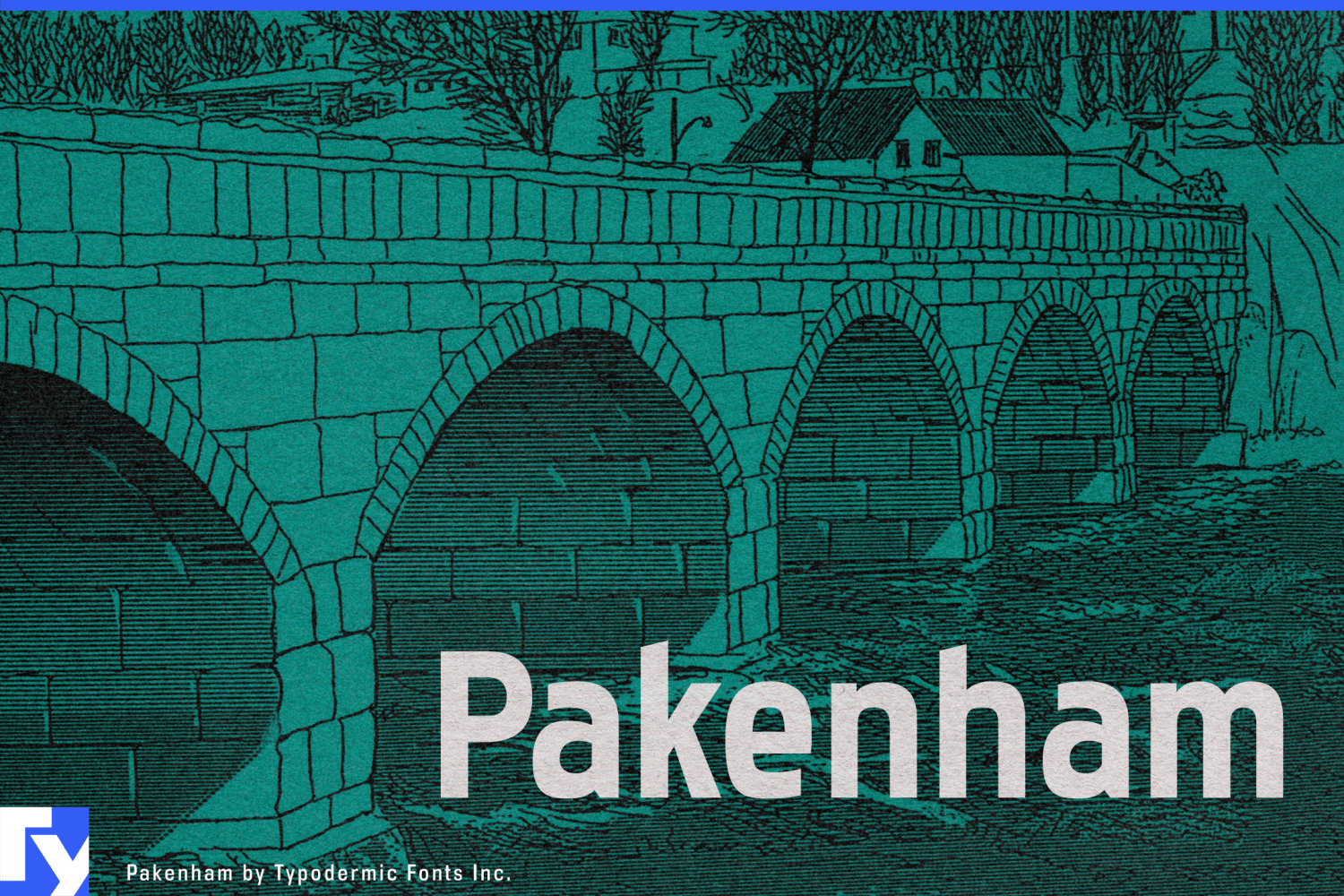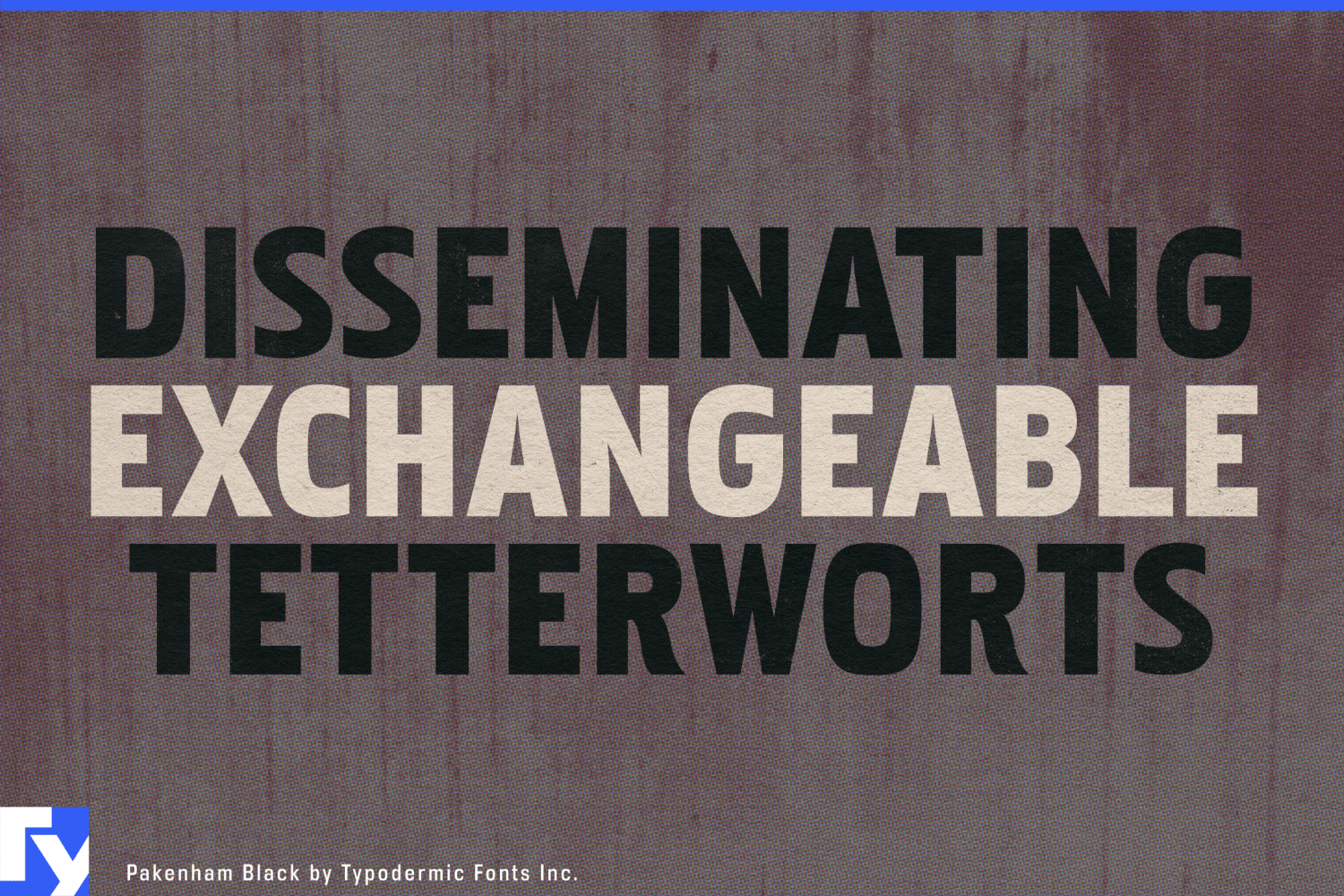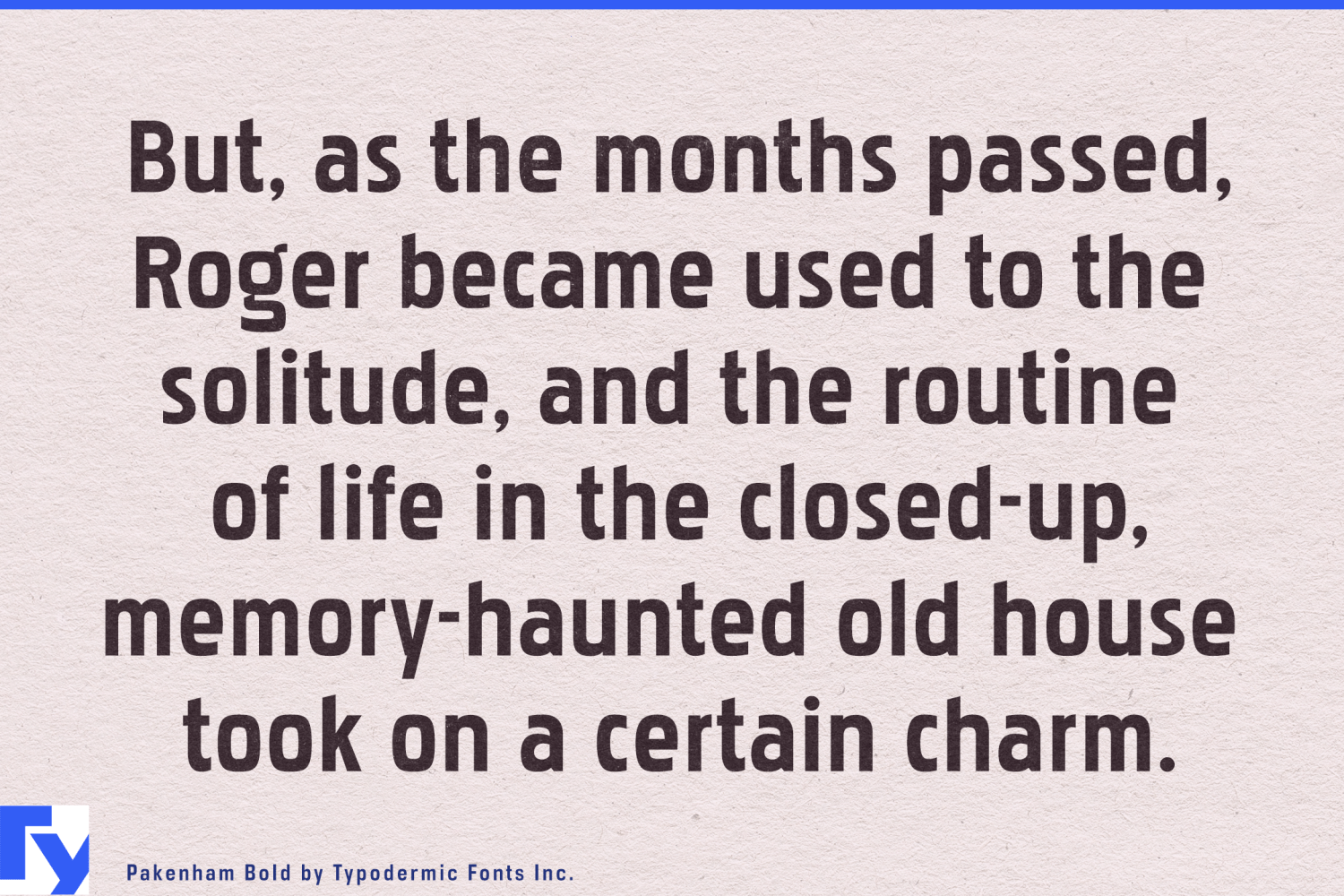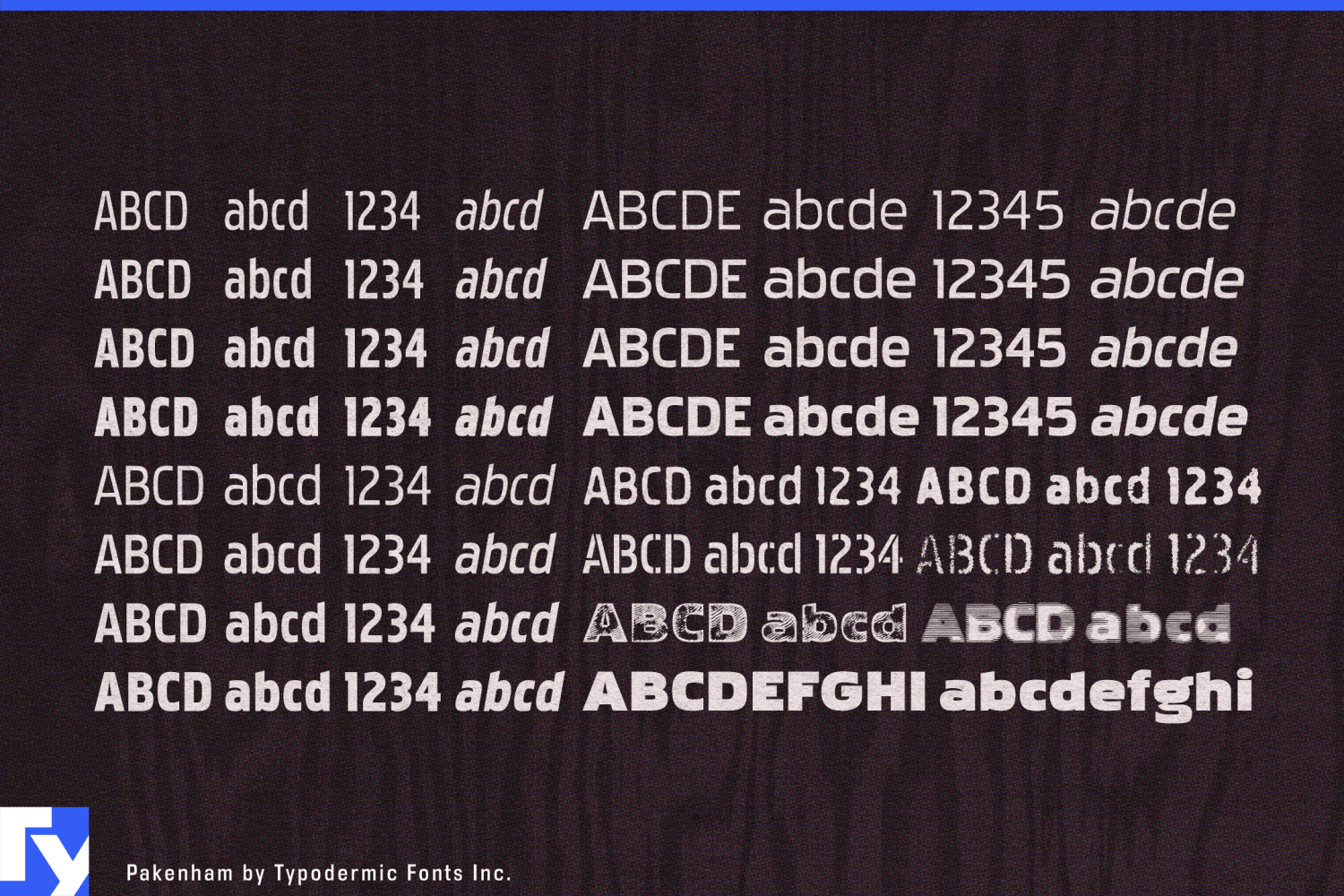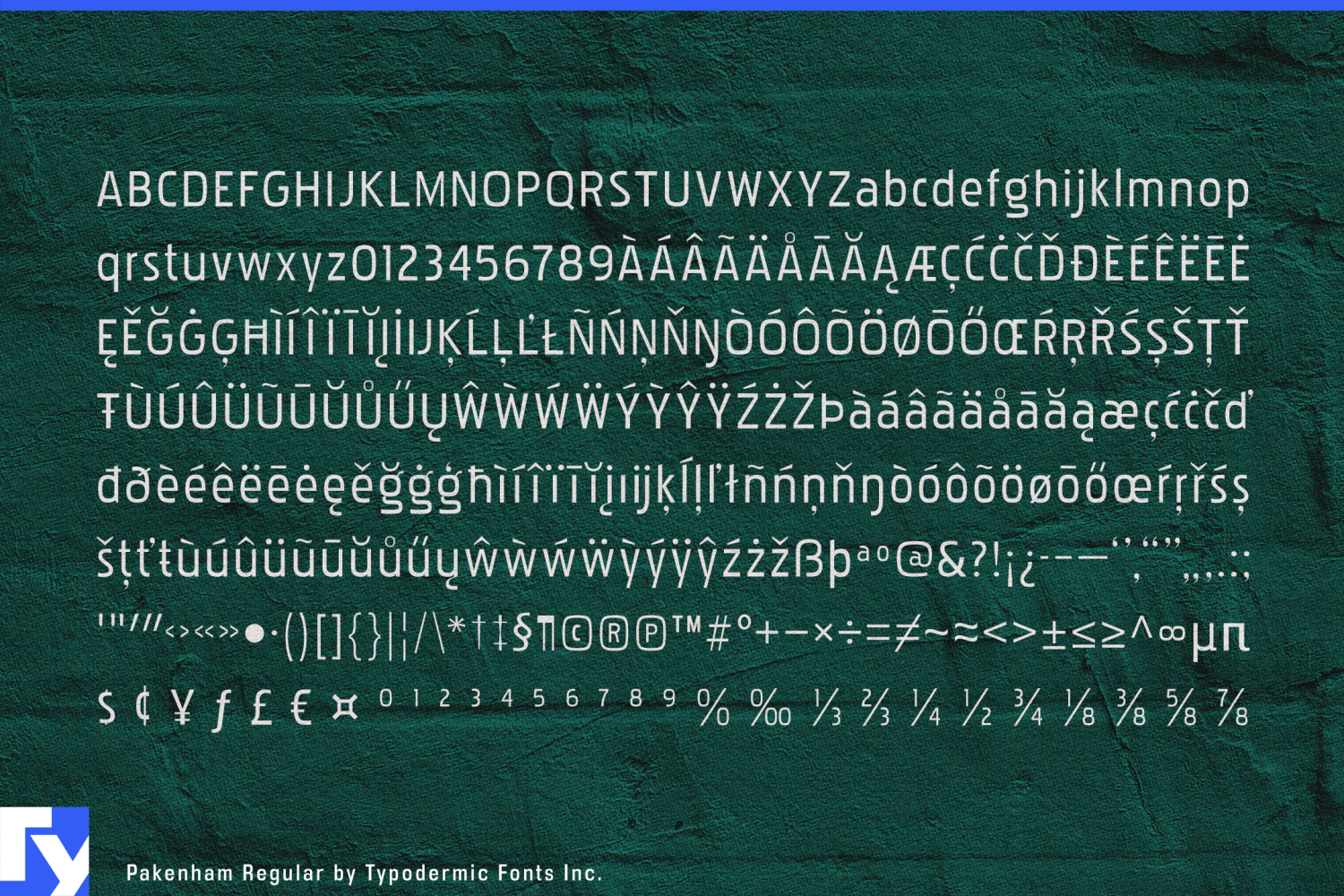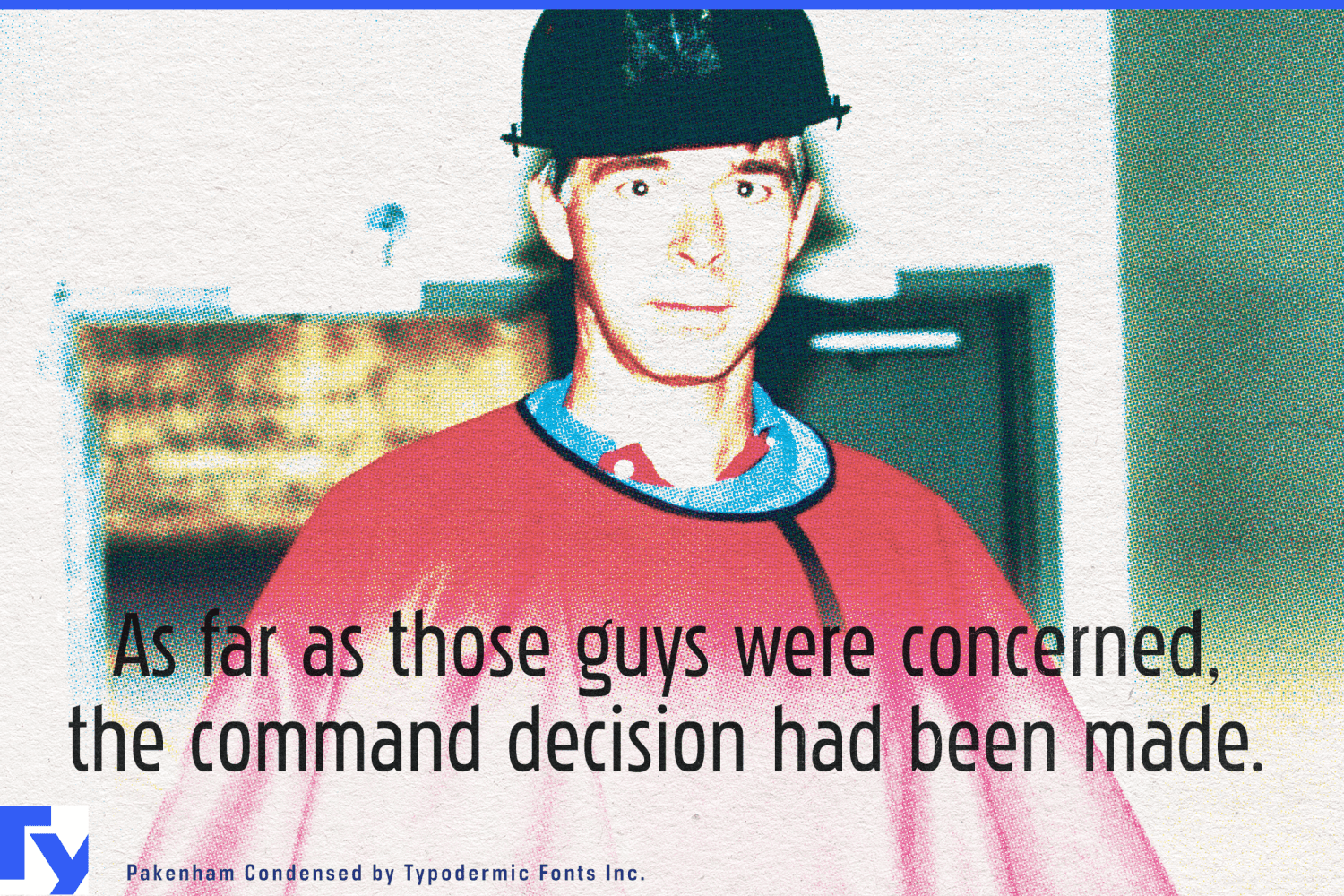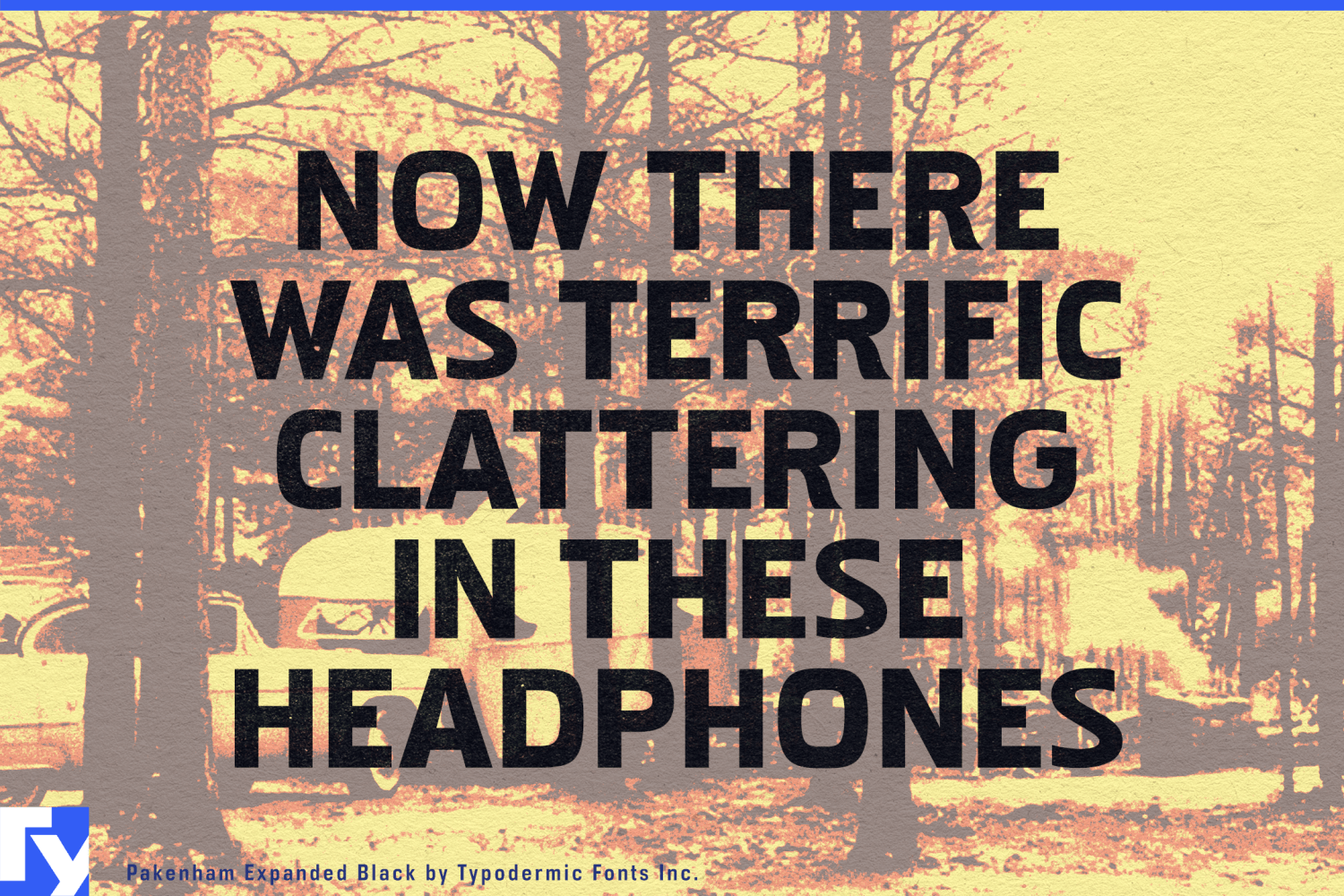
Pakenham
Pakenham has the practical awkwardness of lettering made for a real place. Its squarish, superelliptical curves, modest lowercase, and angled ascenders resist the smooth regularity of a conventional workhorse sans. The forms are competent but idiosyncratic, suggesting commercial lettering worked out by a local sign painter rather than handed down as part of a corporate identity system.
That puts Pakenham naturally around campgrounds, cottage country, fishing lodges, canoe rentals, marinas, summer camps, roadside motels, bait shops, and outdoor recreation businesses. It can handle the entrance sign, but the more characteristic uses are the ordinary signs that accumulate around a place: CABINS 1–8, CANOE RENTALS, FIREWOOD, BOAT LAUNCH, CAMP STORE, SHOWERS, ICE, or CAMPSITES AVAILABLE. Nothing needs to look antique; Pakenham simply gives those words the character of lettering made locally for a specific job.
Its condensed styles are particularly useful in that world. Sign painters rarely get to choose the dimensions of the board, and long names still have to fit between the posts. Pakenham can squeeze trail names, rental information, activity listings, directions, and programme headings into narrow spaces without turning into an anonymous compressed grotesque.
The same character works beyond the campground. Regional attractions, garden centres, farm stands, hardware shops, community arenas, small museums, local festivals, and independent roadside businesses can use Pakenham when polished corporate typography would feel imported from somewhere else. It suits maps, schedules, admission boards, menus, brochures, window lettering, directional signs, and the everyday graphic infrastructure that makes a place feel like itself.
Pakenham is not a historical sign-painter revival, and it does not need artificial distress to suggest hand-made commercial lettering. Its character comes from the shapes themselves; square shoulders, restrained curves, and occasional awkward turns give clean digital type some of the specificity that local signage acquires naturally.
With condensed, regular, and expanded proportions across the family, Pakenham can move from information packed onto a narrow notice to broad lettering stretched across an entrance sign. It stays readable without disappearing into the background like a common workhorse sans; there is always just enough evidence that somebody, somewhere, had to make the sign fit.